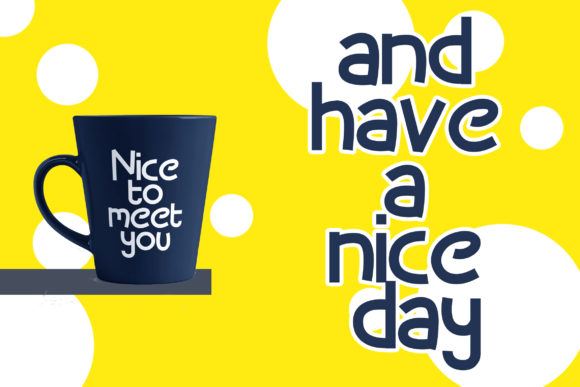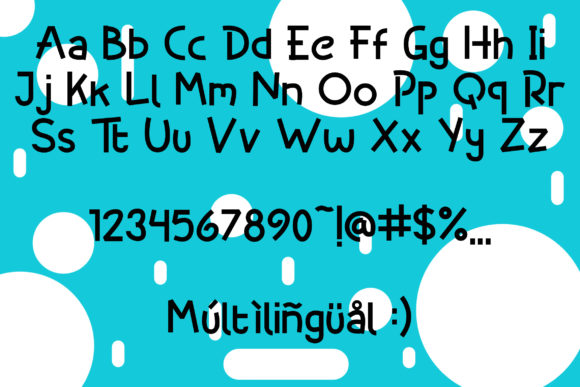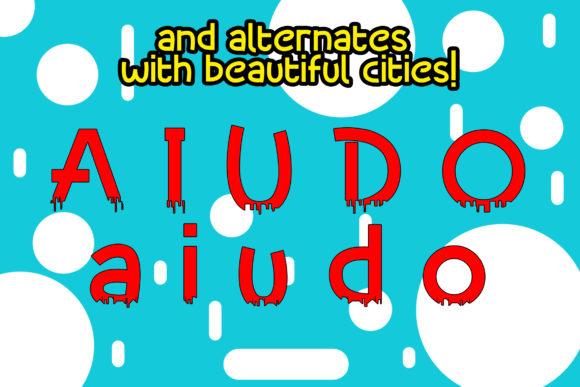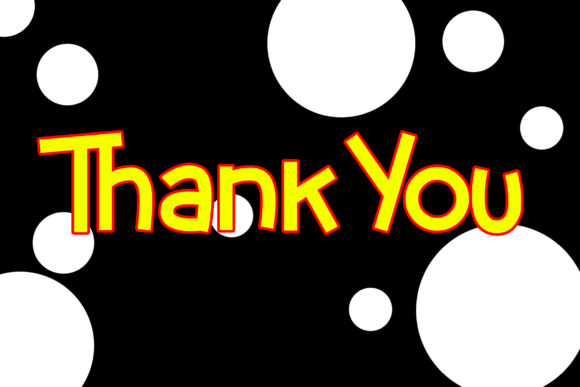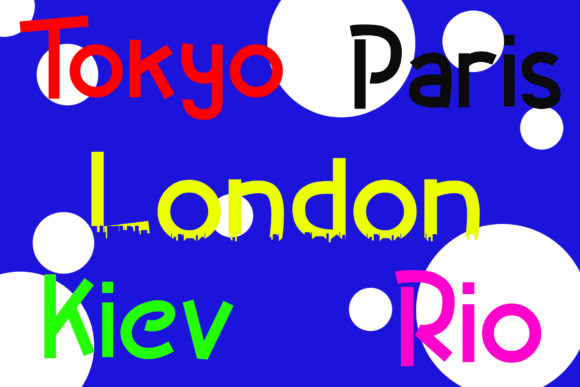
The Urban Charm of Djakarta Font: A Designer’s Delight
I’ll never forget the time I was working on a project to create a vibrant cityscape mural, and I was struggling to find the perfect font to capture the essence of the urban jungle. My client wanted something that would reflect the energy and dynamism of the city, but I was coming up blank. That’s when I stumbled upon the Djakarta font, and it was love at first sight! ✨
A Personal Review of Djakarta Font
- 💥 **Stunning display font**: Djakarta is a true showstopper, with its unique blend of modern and urban flair.
- ✅ **Perfect for city-inspired designs**: Whether you’re working on a poster, brochure, or social media graphic, Djakarta font adds a touch of urban sophistication.
- 🎨 **Highly versatile**: This font is perfect for headlines, titles, and short paragraphs, making it a great addition to any design project.
- 👍 **Easy to read**: Despite its bold and edgy design, Djakarta font is surprisingly easy to read, even in smaller sizes.
While Djakarta font is an amazing addition to any design project, there are a few things to keep in mind: 🤔
- ⚠️ **Limited use in body text**: While Djakarta font is perfect for headlines and titles, it may not be the best choice for longer body text due to its bold and condensed design.
- ⚠️ **Some glyphs may require manual adjustment**: Depending on the platform or software you’re using, some glyphs or special characters may require manual adjustment to ensure proper alignment.
The Backstory of Djakarta Font
Djakarta font was created as a love letter to the vibrant city of Jakarta, Indonesia, and its urban lifestyle. The font’s designer was inspired by the city’s eclectic mix of traditional and modern architecture, as well as its rich cultural heritage. The result is a font that captures the energy and dynamism of the city, making it perfect for designers who want to add a touch of urban charm to their projects.
Q: What is Djakarta font?
A: Djakarta font is a stunning display font created as a love letter to the vibrant city of Jakarta and its urban lifestyle.
Q: What is Djakarta font used for?
A: Djakarta font is perfect for city-inspired designs, headlines, titles, and short paragraphs.
Q: Is Djakarta font easy to read?
A: Yes, despite its bold and edgy design, Djakarta font is surprisingly easy to read, even in smaller sizes.